Setters Font
Setters is a bold and authentic display font. It celebrates abstract shapes in all their eclectic brilliance. Add this font to your creative ideas and notice how it will make them stand out!
Meritta Font
Meritta is a stylish and incredibly elegant serif font. It looks stunning on wedding invitations, thank you cards, quotes, greeting cards, logos, business cards and every other design which needs a handwritten touch.
Singletone Font
Singletone is a beautiful calligraphy font perfect for branding, invitations, stationery, wedding designs, social media posts, advertisements and so much more. This font is PUA encoded which means you can access all of the glyphs and swashes with ease! Fall in love with its incredibly versatile style and use it to create spectacular designs!
Surabaya Font
Surabaya is an incredibly unique and elegant display font. Masterfully designed to become a true favorite, this font has the potential to bring each of your creative ideas to the highest level!
Paris Tonight Font
Paris Tonight is a natural handwritten font, dreamy and romantic. Sweet and dainty, this font is the most beautiful choice for each of your design ideas!
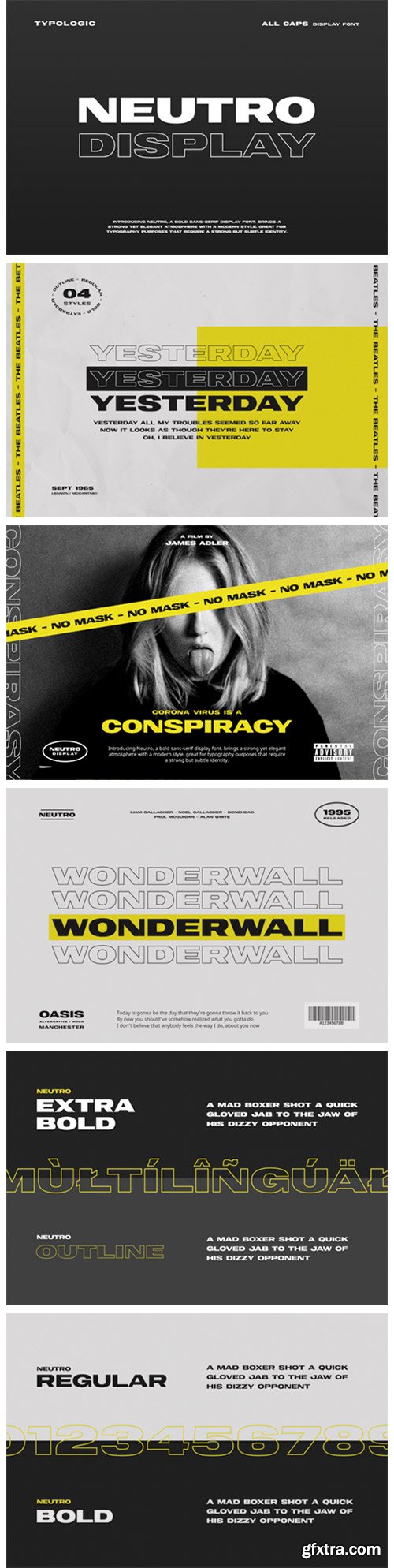
Neutro Font
Neutro is a bold and chunky lettered display font. Add it to your most creative ideas and notice how it makes them come alive!
Light in Brush Font
Light In Brush is a bold and neat lettered display font. Add this font to your creative ideas and notice how it will make them stand out!
East Watch Font
East Watch is a simple and thick lettered handwritten font. Modern and neat, this font will turn each of your designs into outstanding creations!
Colback Font
Colback is a simple and well balanced handwritten font. Its natural and unique style makes it incredibly fitting to a large pool of designs.
Basyirah Font
Basyirah is a chic and joyful handwritten font. It looks lovely on wedding invitations, thank you cards, quotes, greeting cards, logos, business cards and every other design which needs a handwritten touch. It features a varying baseline, smooth lines, gorgeous glyphs and stunning alternates.
Puthisha Font
Puthisha is a unique and elegant handwritten font, created with the help of a brush pen. It maintains its classy calligraphic influences while feeling contemporary and fresh.
Malibu Font
Malibu is a simple and neat lettered handwritten font. Playful and friendly, this font will level up each of your creative ideas!
Chromogene Font
Chromogene is a bold and dramatic display font. Add this font to your creative ideas and notice how it will make them stand out!